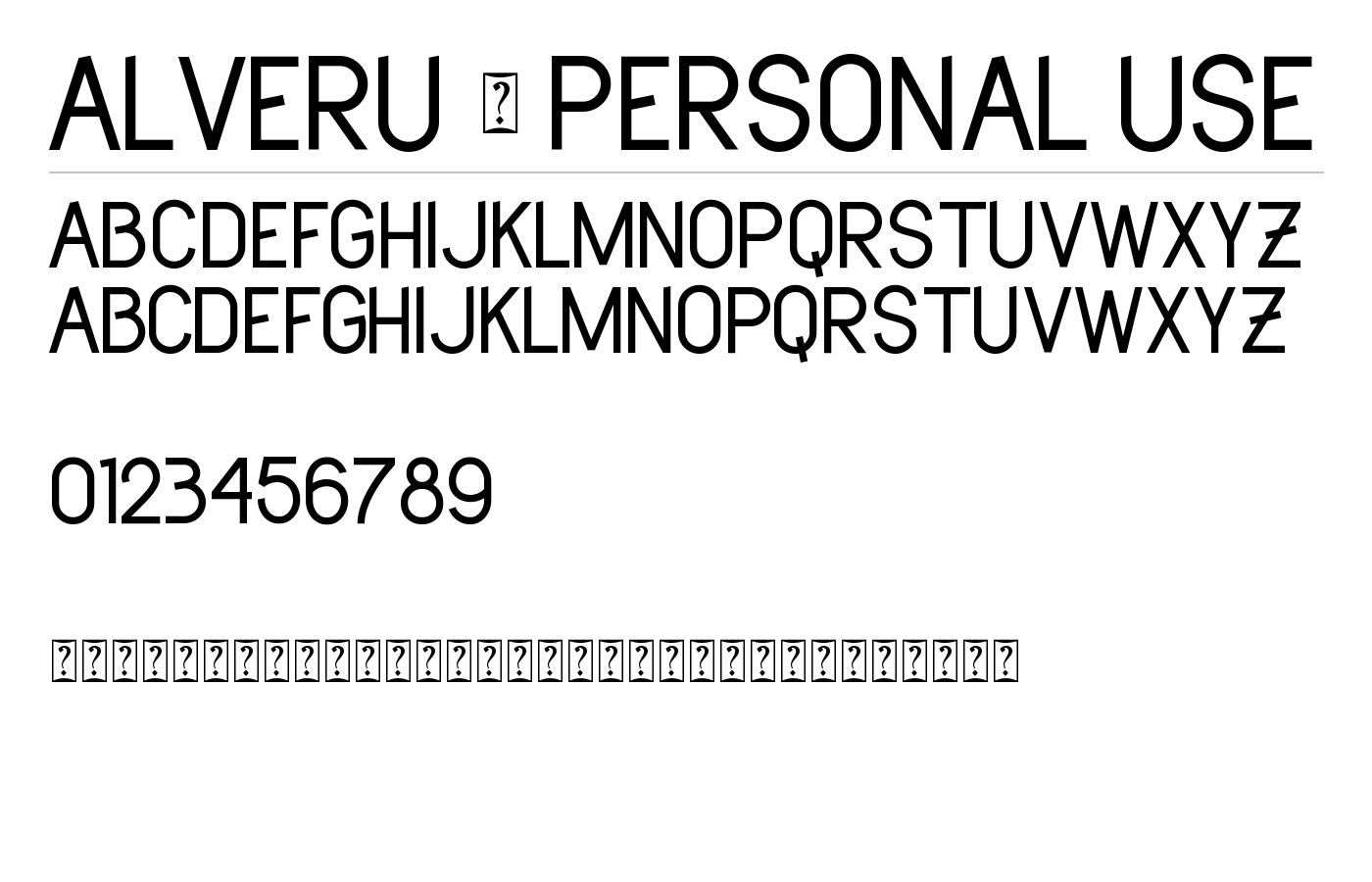
Alveru is a sleek, condensed sans serif font with a modern and slightly quirky character, featuring narrow letterforms and uniform stroke weight that give it a clean yet distinctive appearance. Its tall x-height and unique details, like the quirky tail on the Q and the angular shapes of some letters, make it well suited for eye-catching headlines, branding, and creative projects where a contemporary but personal feel is desired. This font works best in display settings, adding a touch of personality and style without sacrificing readability.
Alveru - Personal Use Font
About Alveru - Personal Use Font